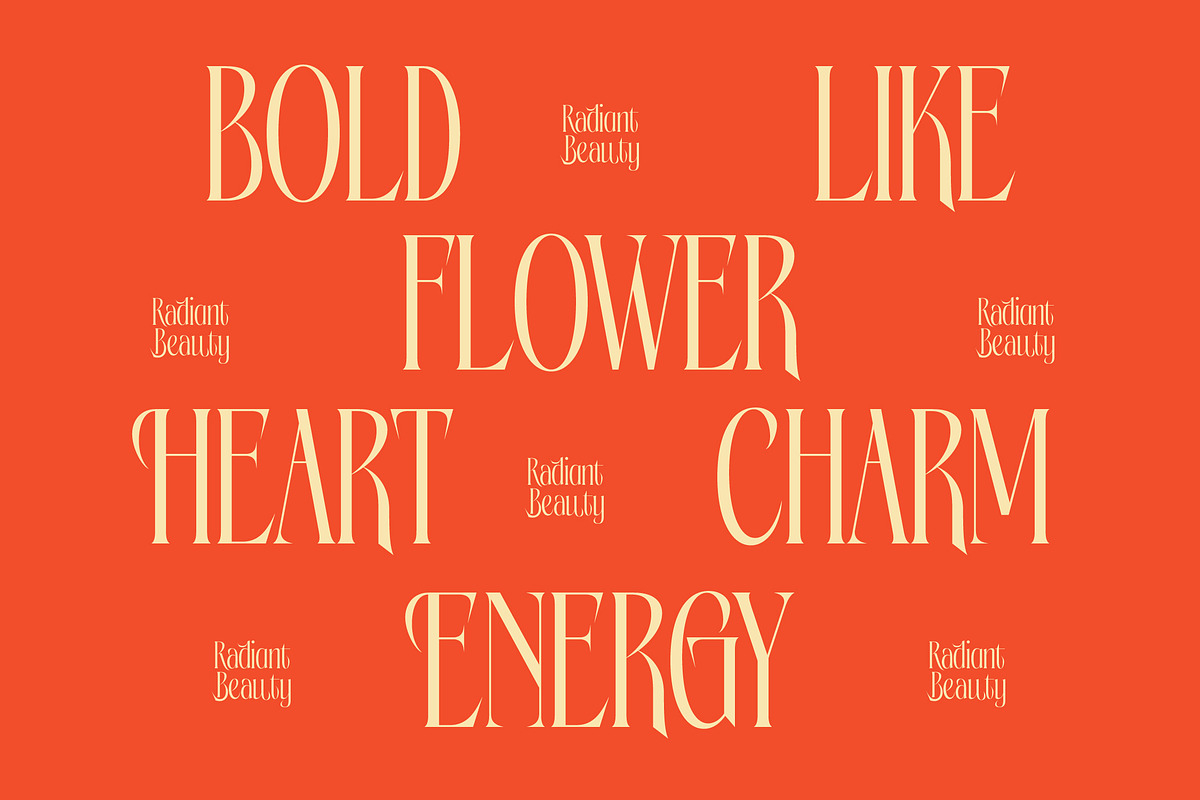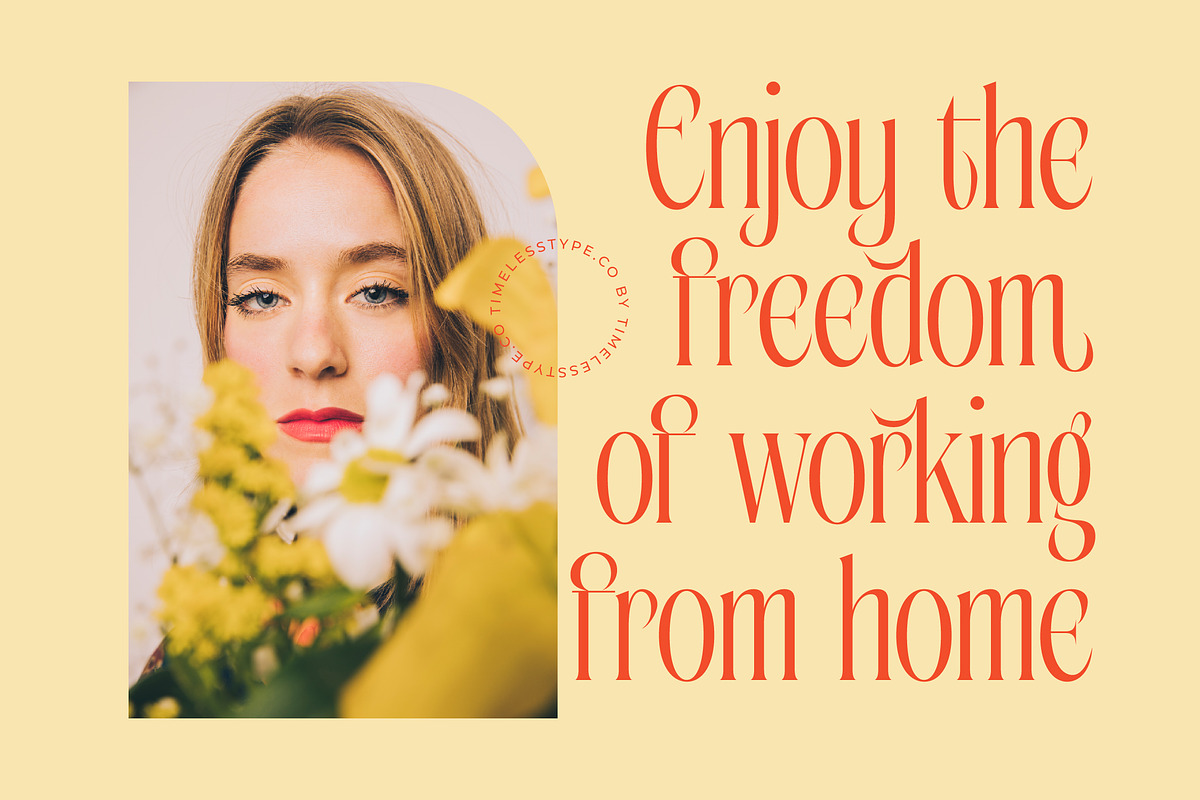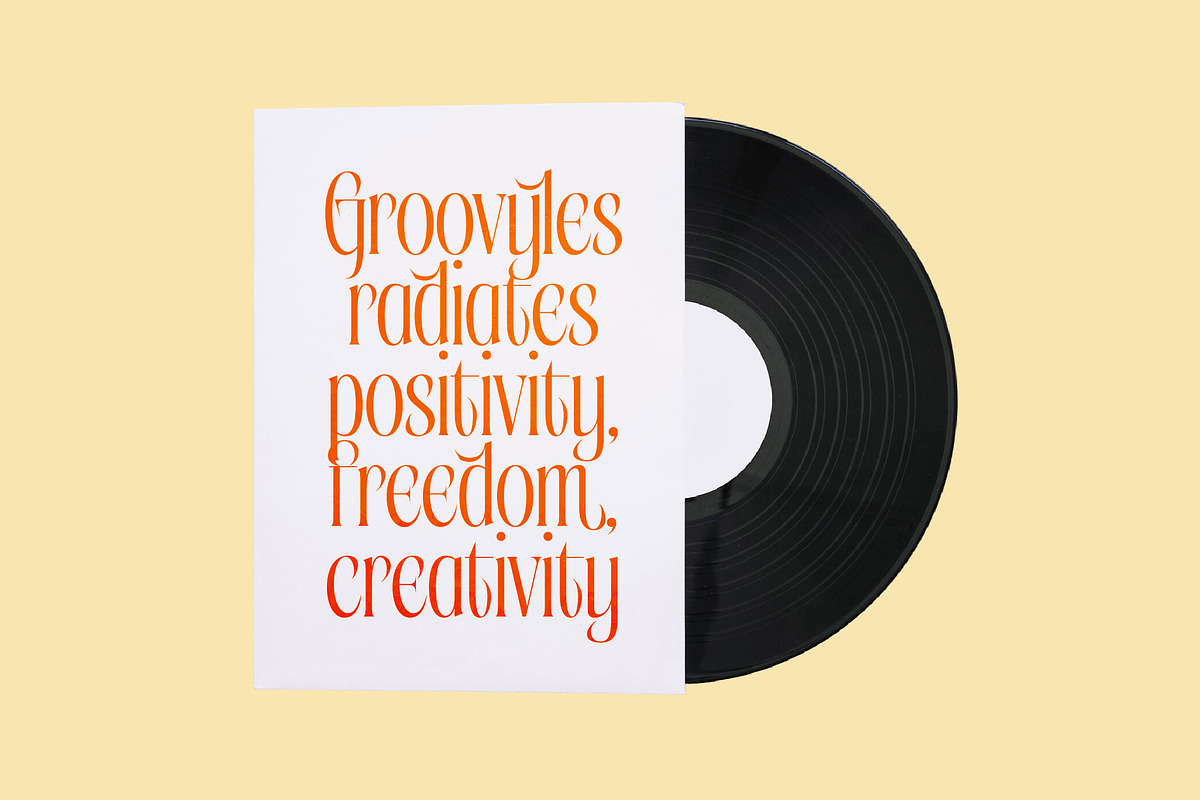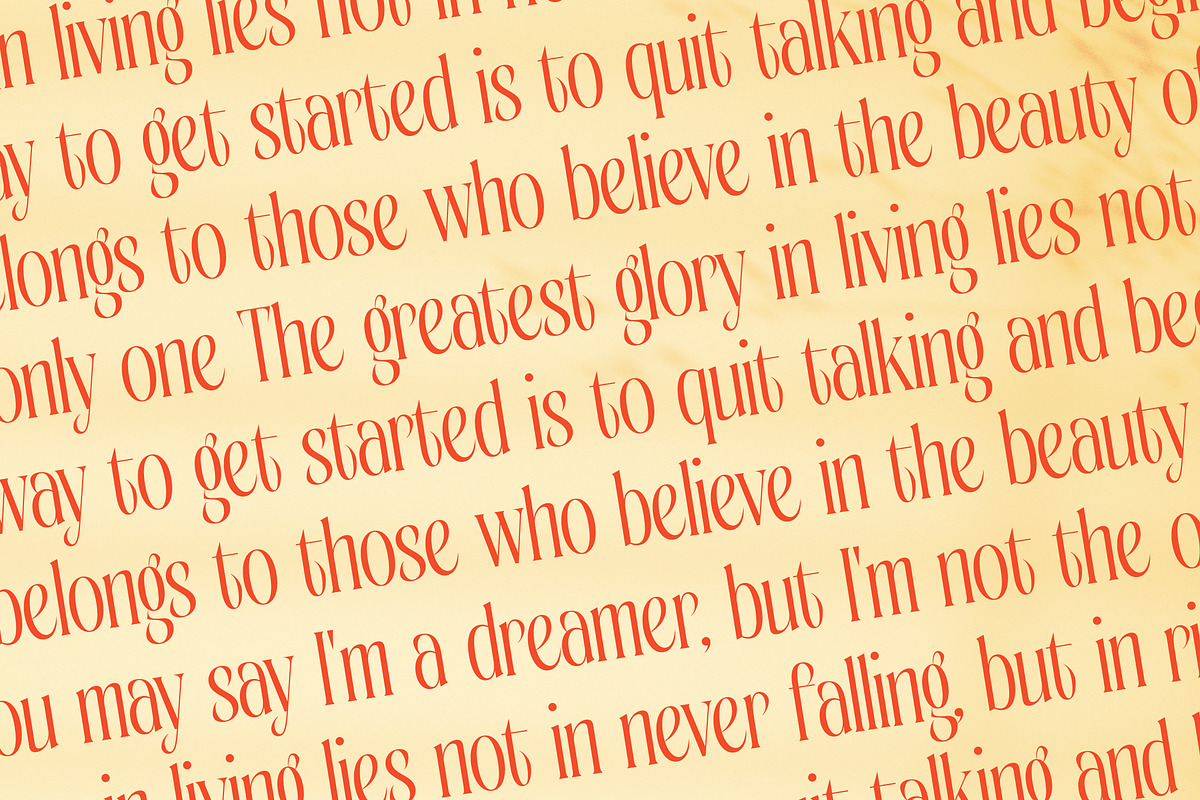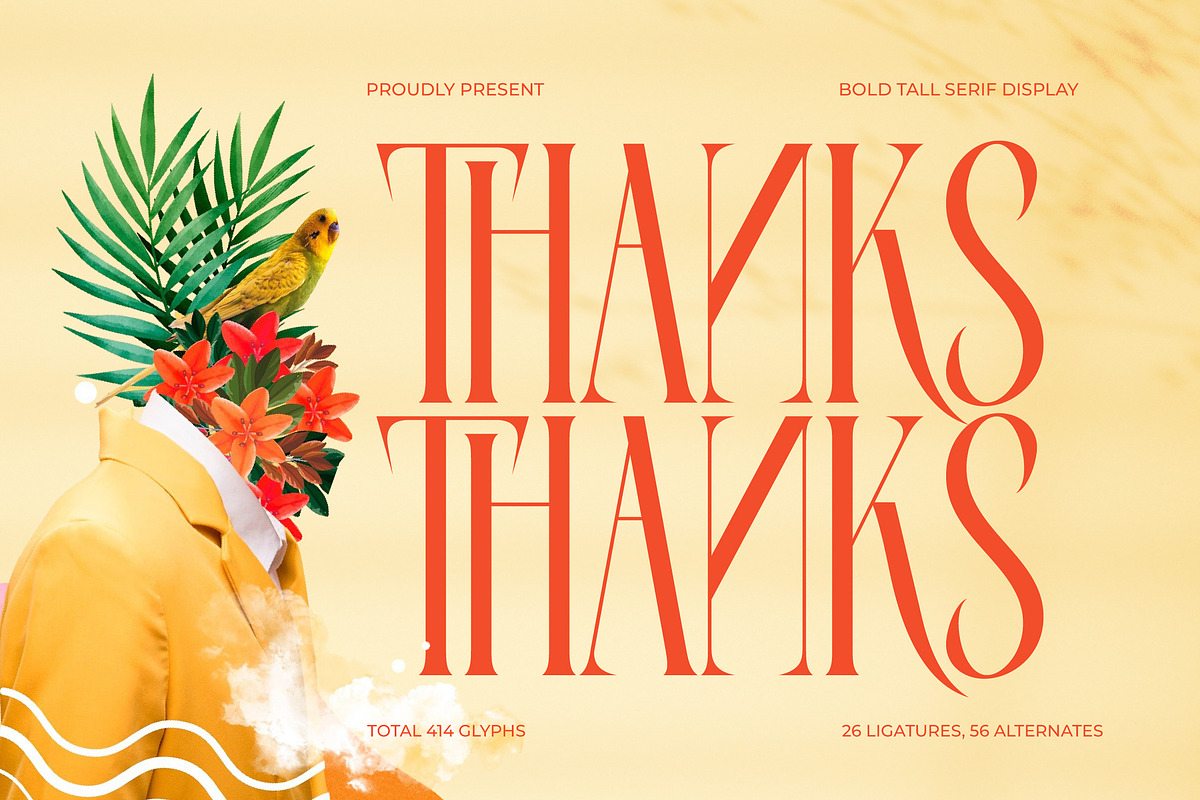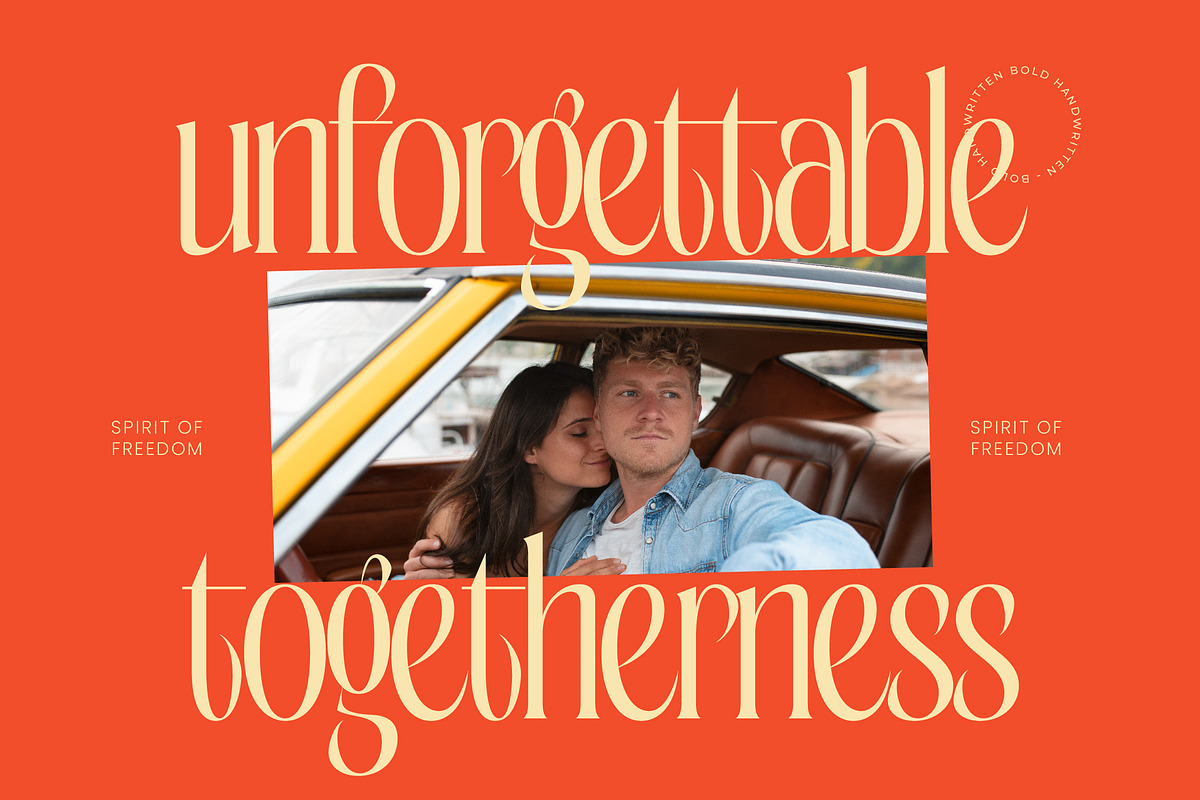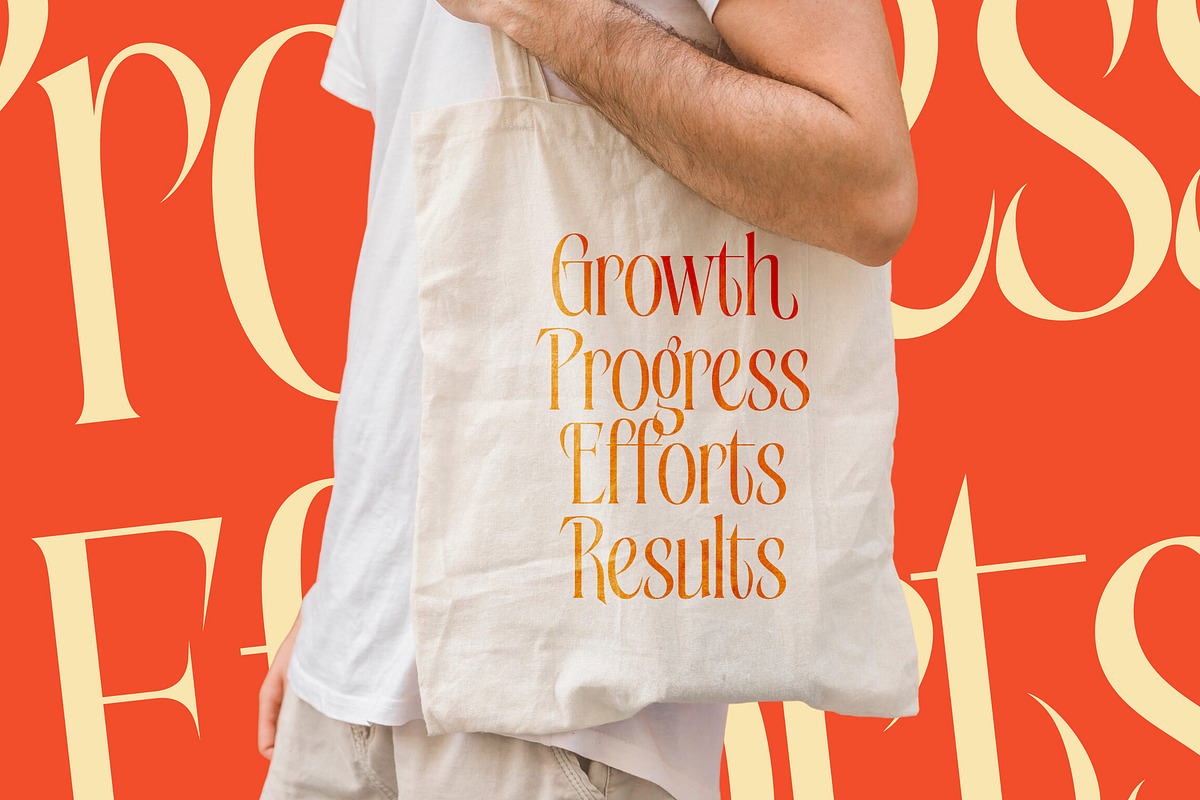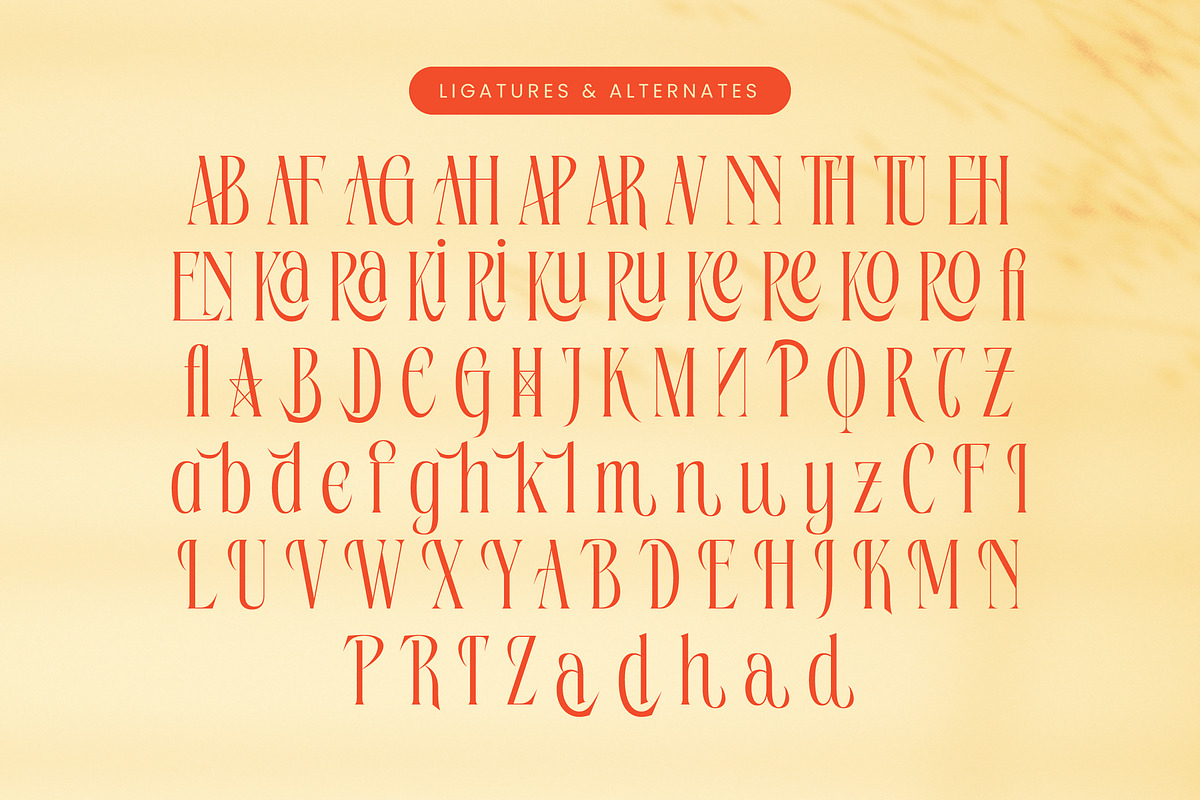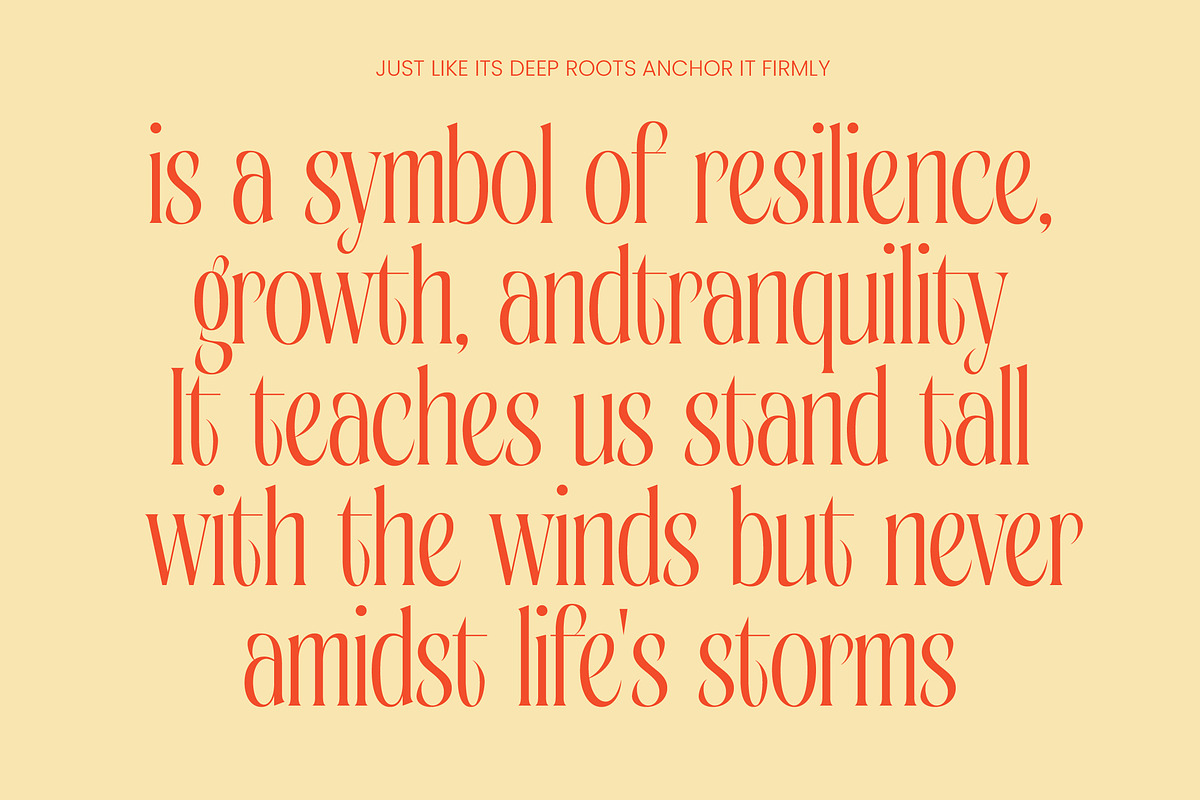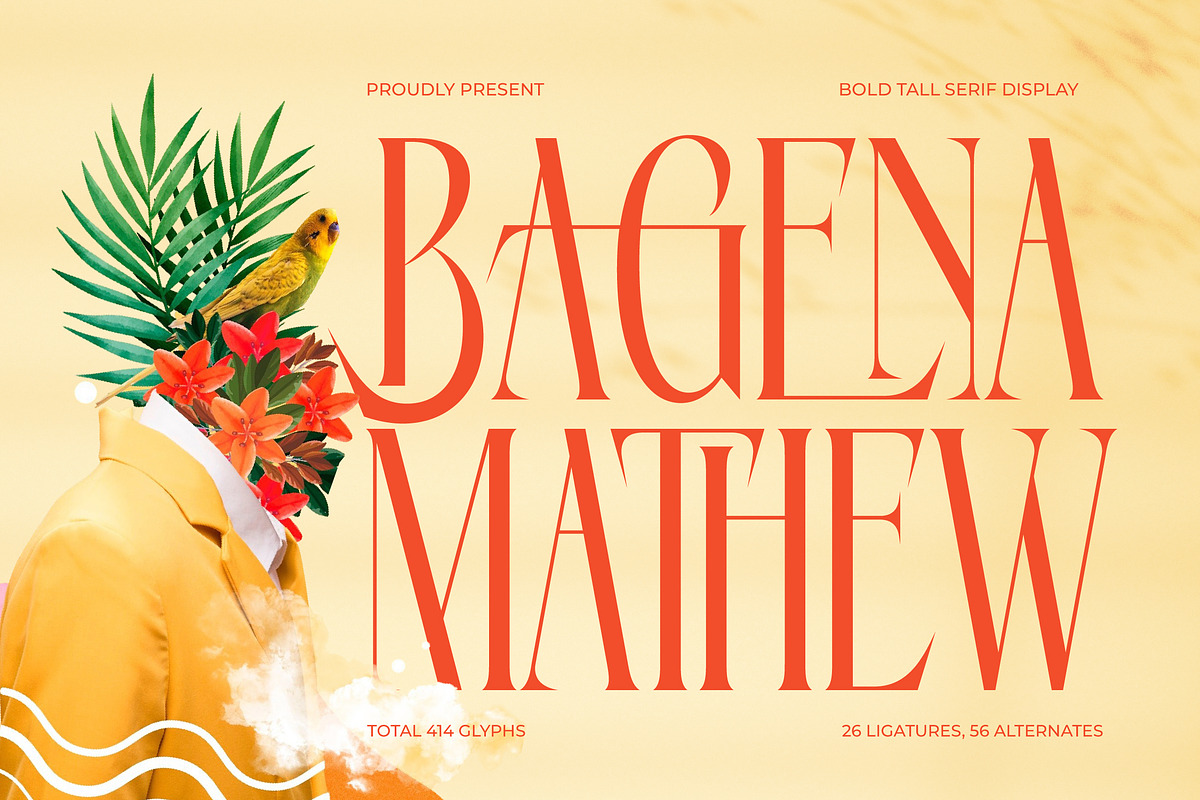
Bagena Mathew Bold Tall Serif
Bagena Mathew is a masterclass in sophisticated design, offering a striking balance between height and weight that commands attention instantly. This Bagena Mathew font transcends traditional boundaries to deliver a visual experience that is as memorable as it is beautiful.
Drawing inspiration from the golden era of high-fashion magazine covers and the lush, rhythmic patterns of botanical art, this typeface captures a spirit of refined eccentricity. It reflects a world where bold geometry meets delicate curves, creating a silhouette that feels both timeless and avant-garde.
With its commanding presence, this modern serif display is engineered for maximum luxury typography appeal. The high-contrast serif strokes provide a rhythmic flow that ensures every word carries significant branding impact, making it a go-to editorial font for projects that require a touch of prestige.
Perfectly aligned with the current modern serif trend, this typeface meets the growing demand for editorial display fonts that offer more than just legibility. It caters to the shift towards character-driven typography where the letters themselves become the central element of the visual narrative.
From high-end logo design to cohesive branding identities, this font is exceptionally versatile across the fashion and wedding industries. Its unique profile makes it ideal for editorial layouts, luxury packaging, and social media headers that need to stand out in a crowded digital landscape.
This comprehensive package includes a generous selection of ligatures and alternates to provide endless creative possibilities for custom letterforms. It also features multilingual support and a full set of international characters, ensuring your message reaches a global audience with consistent elegance.
- Ligature 26 Alternate 56